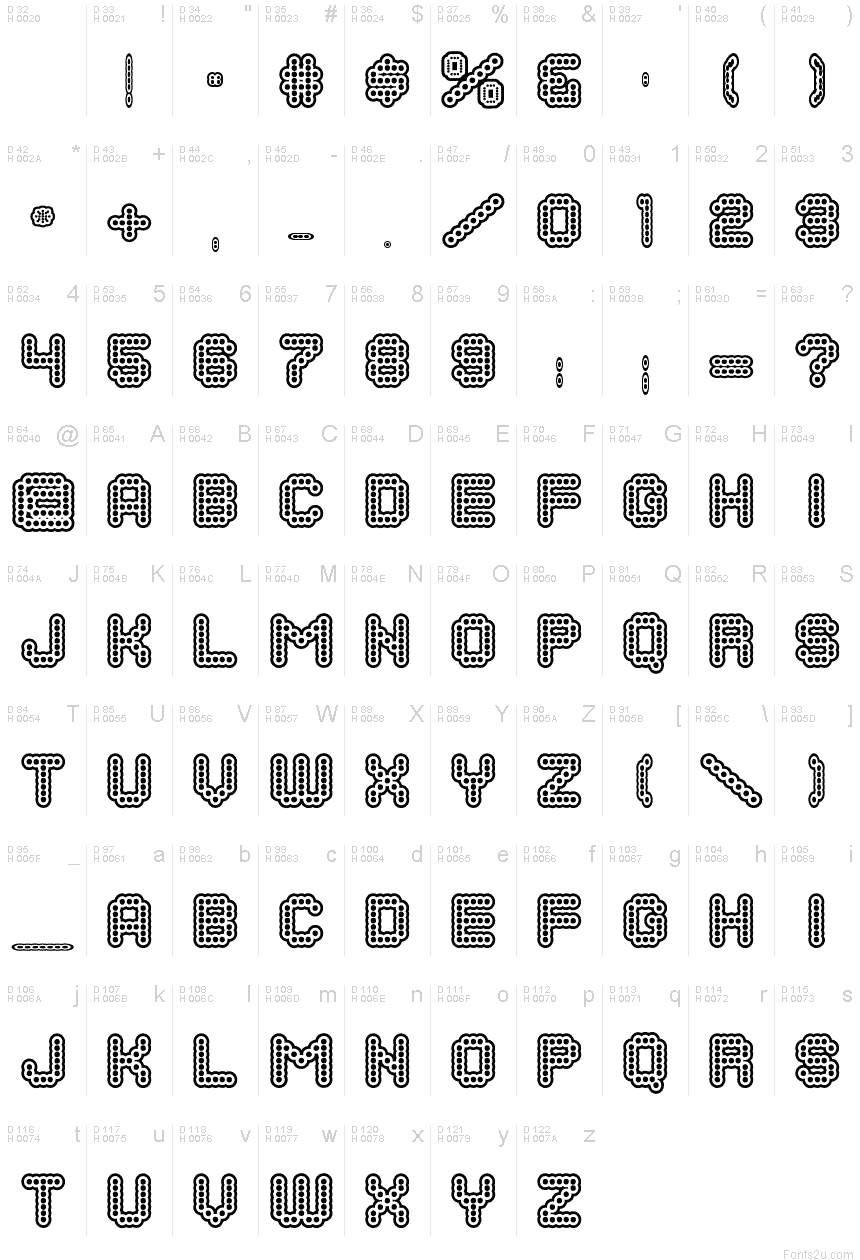
Dots All For Now Inline JL
Dots All For Now Inline JL font by Jeffrey N. Levine is a free digital dotted inline typeface that reads like a row of tiny bulbs snapped into place. Each letter is stitched from round “LED” dots with a hollow center, giving your words that crisp arcade-sign rhythm without feeling heavy. The spacing stays open, so headlines keep their bounce even when the message is long.
Using Dots All For Now Inline JL works beautifully for arcade posters, retro tech mockups, album art, party invites, sticker-style social graphics, toy packaging, and event tickets. Set this free font on dark backgrounds to make the dot grid pop, and keep it on the larger side so the dotted detail doesn’t mush together. Pair it with a plain sans like Inter or Helvetica for clean supporting text.